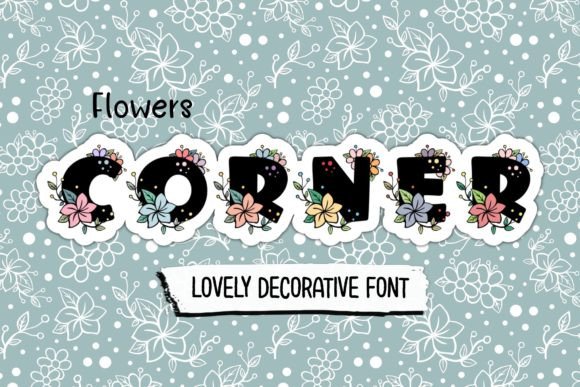
Looking for the perfect font to add a vintage touch to your design project? Look no further than Flowers Corner Font! Created by 18CC FONTs, this lovely decorative font is sure to add a touch of whimsy to any project.
With Flowers Corner Font, you can create beautiful logos and branding that will capture the essence of a bygone era. The font's elegant curves and unique floral accents make it the perfect fit for any project where you want to evoke a sense of nostalgia or romance.
But that's not all! Flowers Corner Font is also perfect for social media graphics, posters, and even crafty DIY projects. Use it to create beautiful wedding invitations, scrapbook pages, and more. The possibilities are endless!
Not only is Flowers Corner Font beautiful to look at, but it's also incredibly easy to use. Simply install the font on your computer and start creating! And with its wide range of weights and styles, you can customize the font to fit your exact needs.